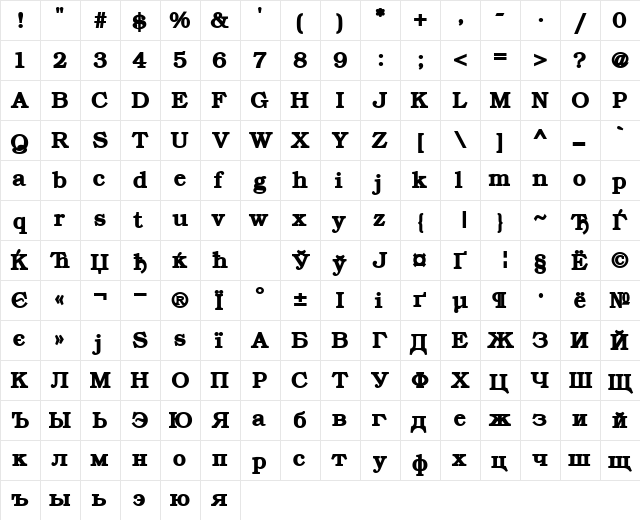
ER Bukinist 1251 Bold
Design Context for ER Bukinist 1251 Typeface
ER Bukinist 1251 takes a measured approach to typography — its balanced proportions and neutral character make it a reliable workhorse for both digital and print work. Its bold stroke weight gives it real presence on the page.